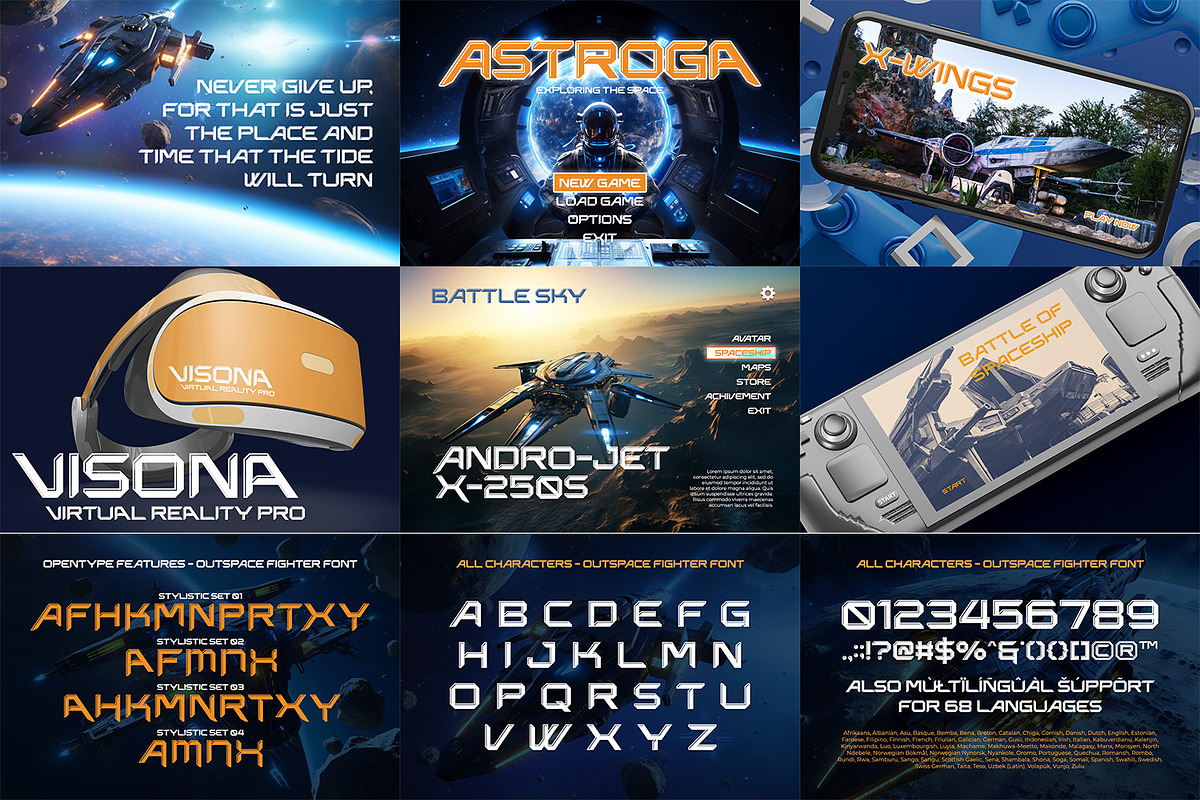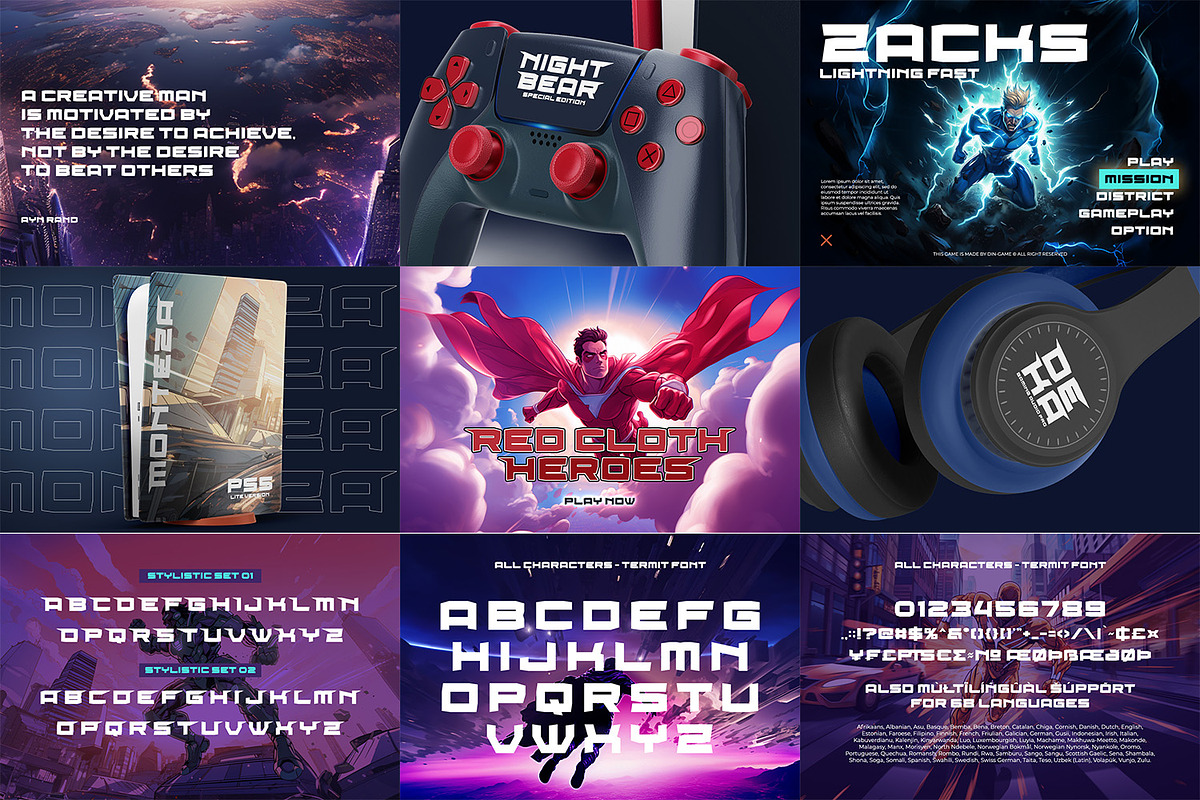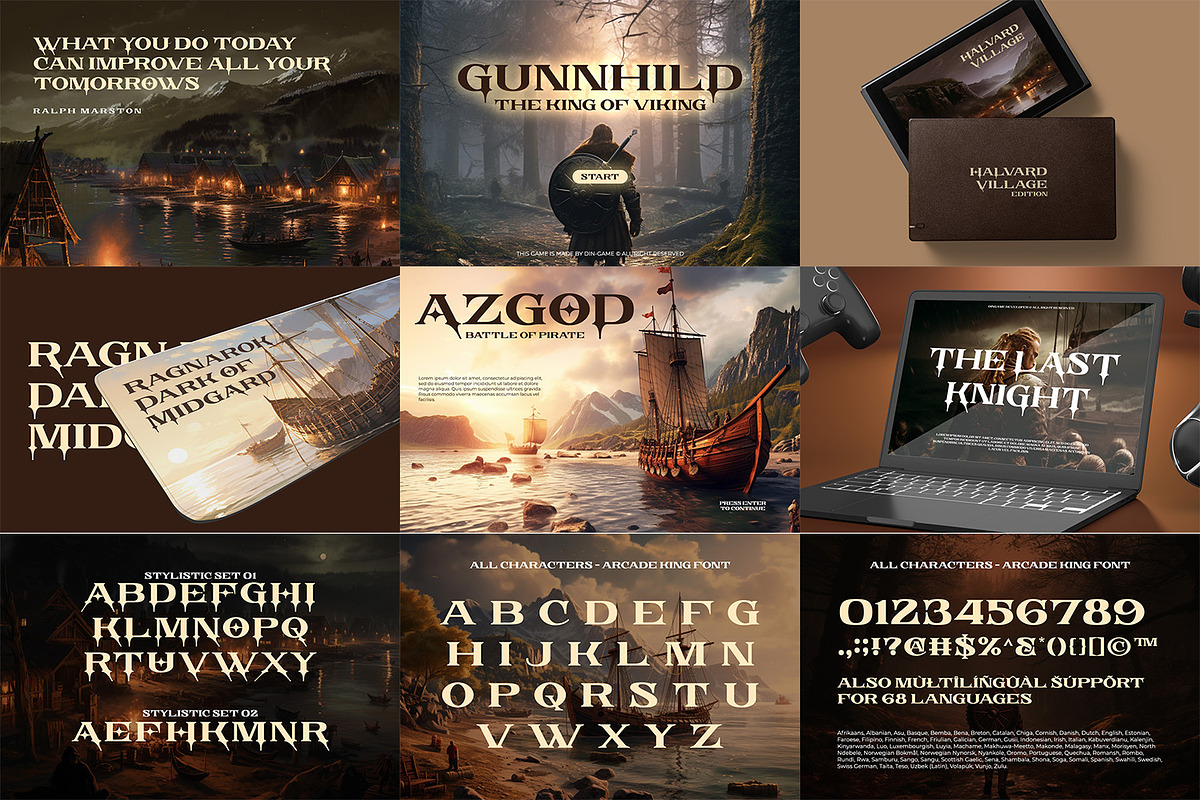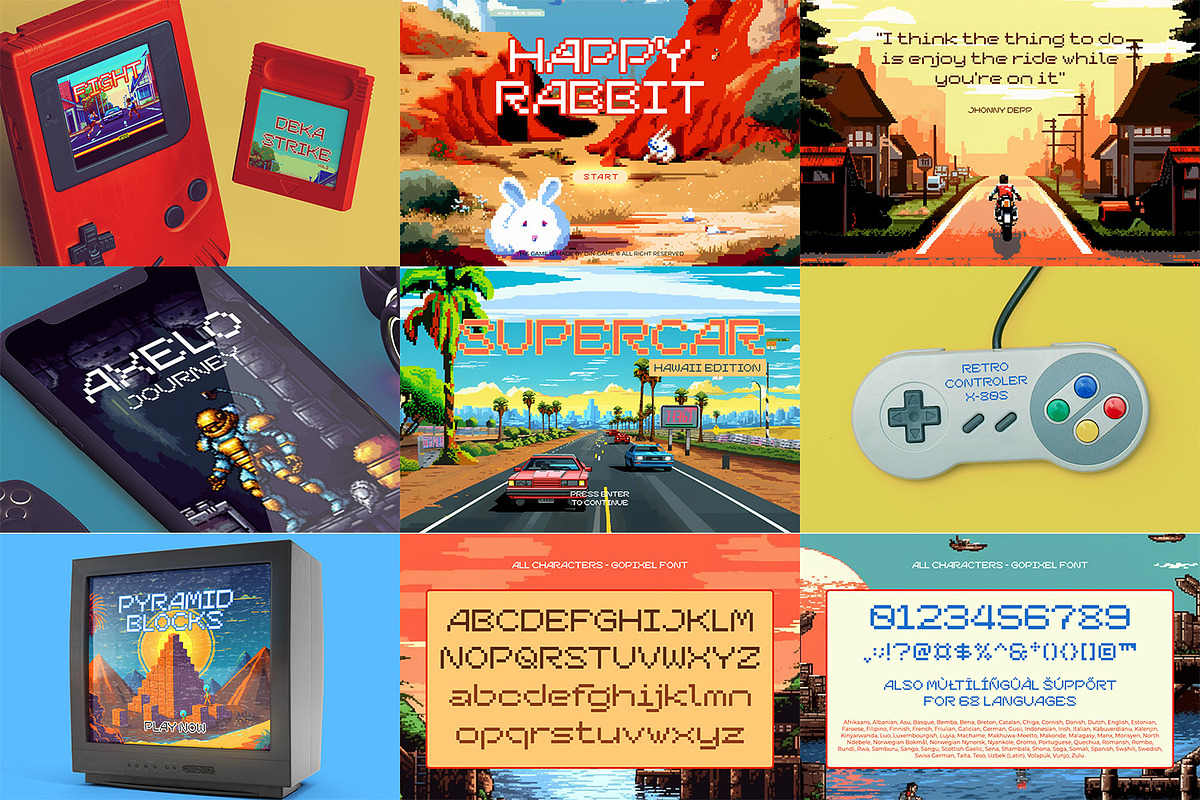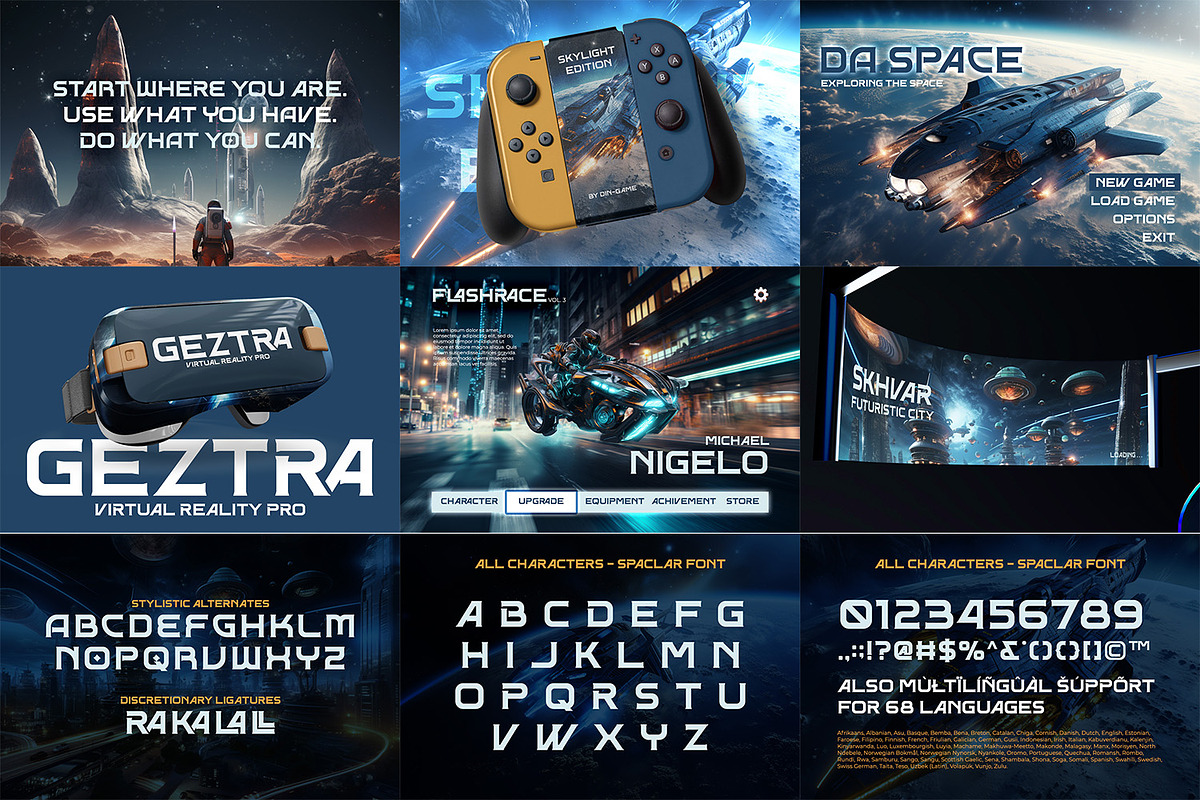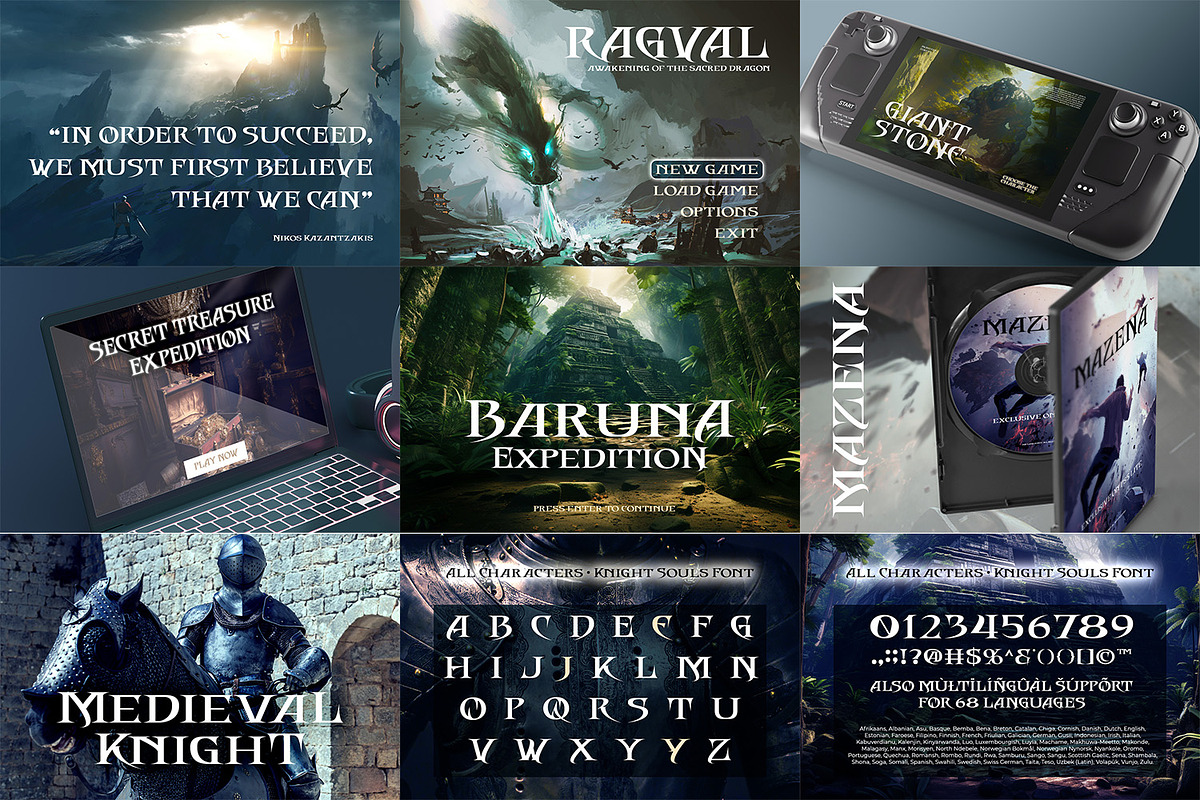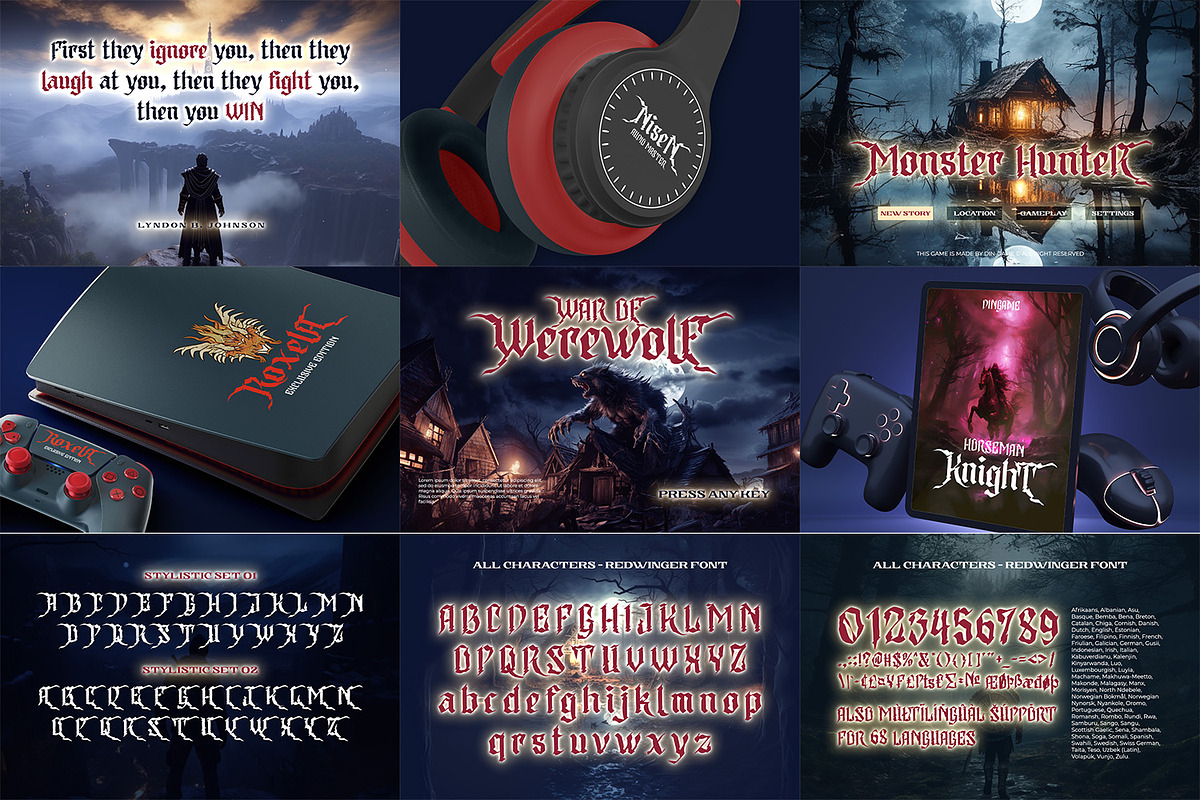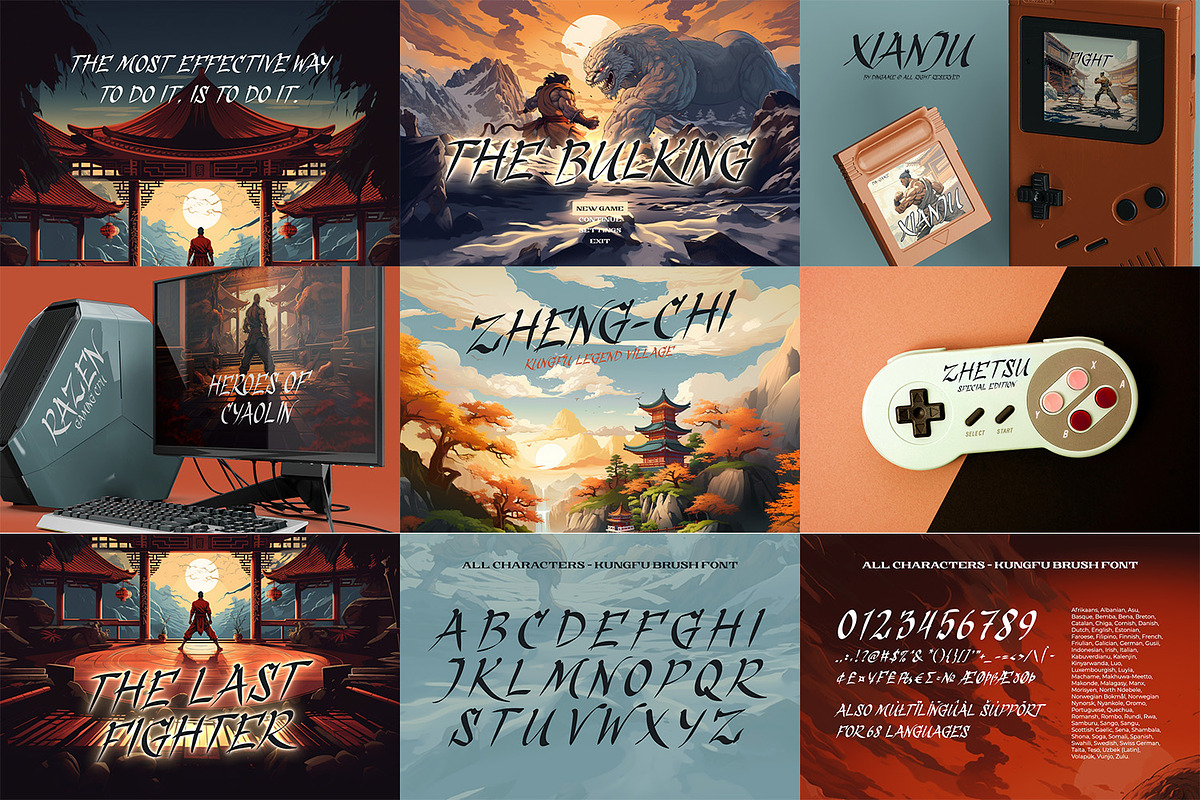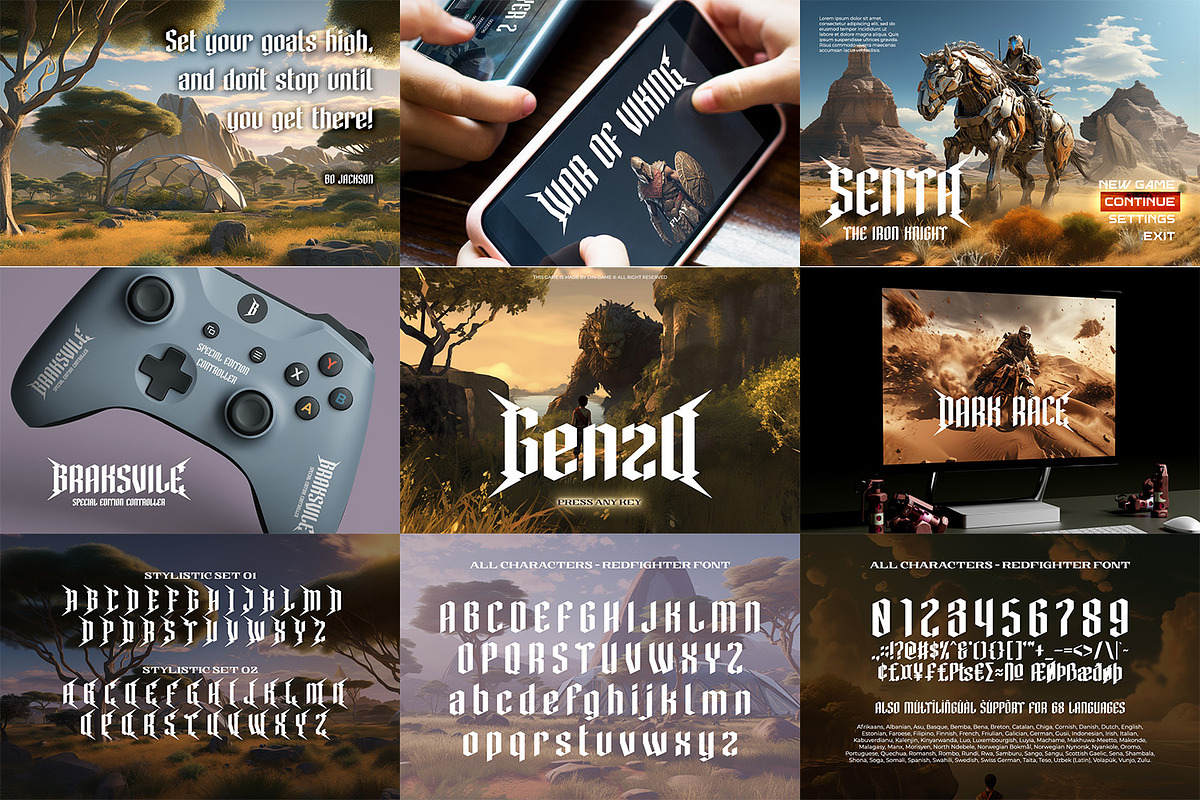
Special Game Font Bundle
Hello, Everyone! Introducing Special Game Font Bundle from Ditatype!
A captivating collection that brings the power of typography to the gaming world. These typefaces are designed to evoke the excitement, energy, and visual language of various gaming genres, allowing you to create designs that resonate with players and fans. Create gorgeous titles, logos, printed quotes, posters, social media graphics, standout packaging, or beautiful t-shirts!
The fonts include full set of character and glyph and it also includes Multilingual Supports to help you reach a global audience. See the previews above to get some inspiration on how you can use them.
Fonts include are :